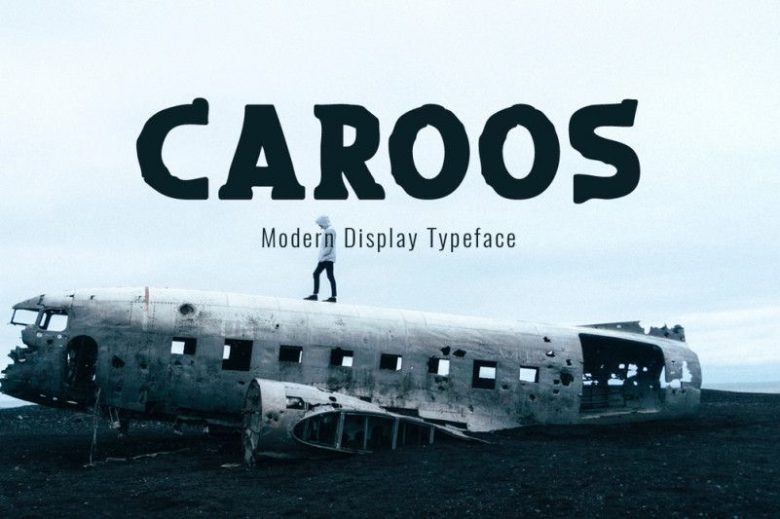
Caroos Font
Caroos is a modern display font.
Caroos is perfectly suited for stationery, logos, t-shirt, paper, print design, website header, photo frame, flyer, music cover, poster, image slider and much more.